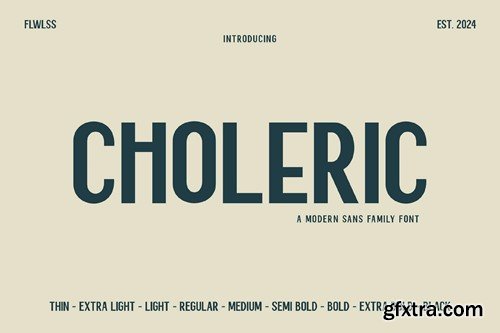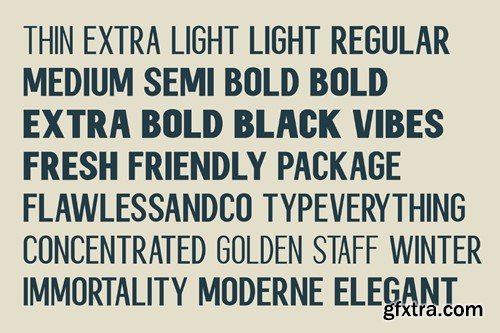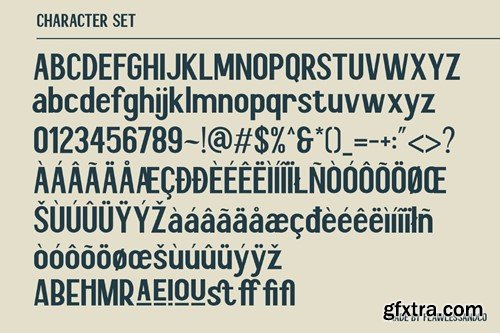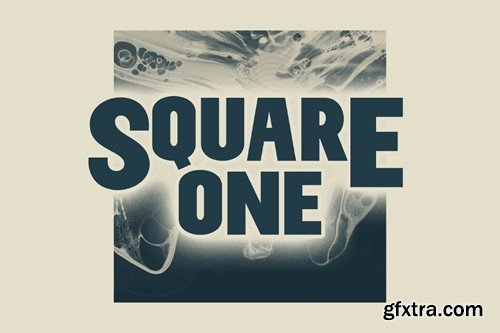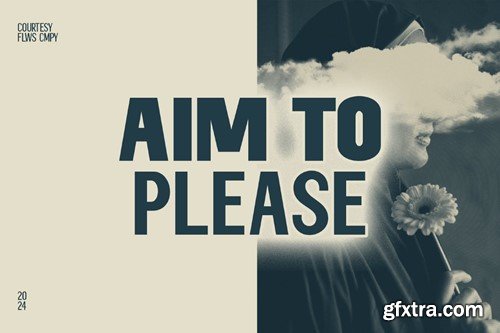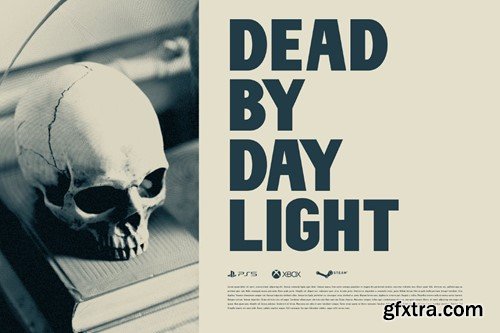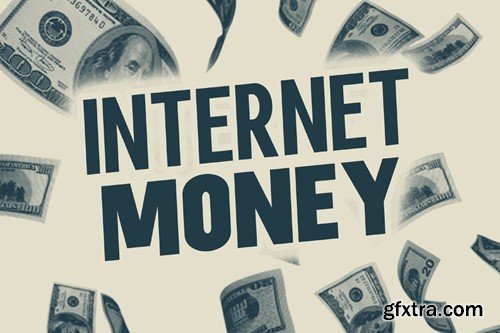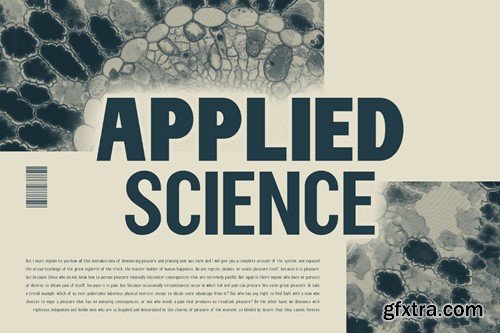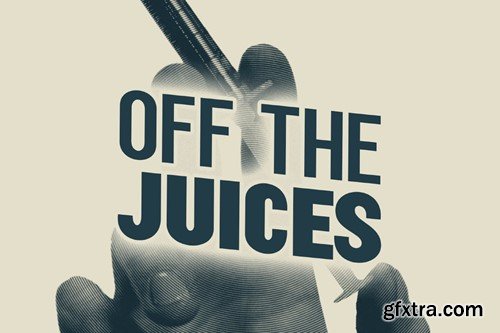
胆汁质 - 现代无衬线字体 9JHNBRQ
Choleric - Modern Sans Serif Family, Font Family, Sans Serif Font, Family Sans Serif, Modern Font, Elegant Font, Branding Font, Logo Font, Magazine Font Choleric is a versatile modern sans serif font family consisting of various weights ranging from thin to black styles, including thin, extra light, light, regular, medium, semi-bold, bold, extra bold, and black. Each style within the Choleric family maintains a strong and assertive impression with balanced characters. Featuring clean and sans-serif designs, Choleric emphasizes clarity and precision in every letter across its diverse weight spectrum. Its sharp and proportional lines ensure readability and aesthetic appeal, making it suitable for a wide range of design applications, from elegant titles to body text and modern graphic designs that demand a bold and contemporary look. But here we just share the regular type, if you want to buy all types, you can visit my website at flawlessand.co! Keywords: Font Family, Sans Serif Font, Family Sans Serif Included: Features : Multilingual Uppercase alphabet A-Z Lowercase alphabet a-z Numbers 0-9 Some punctuation NOTE: For all the characters are also available, accessible in the Adobe Illustrator Glyphs Panel, or in Adobe Photoshop Character Open Type Panel. If you need help, just write me! Thanks so much for checking out my shop! ----------------------------------------------- HOW TO USE FONT : (connected letters, swirls, heart, swashes, diamond) for the first, install the .otf file and open fontbook/character map, find the font and you can copy and paste the heart letters from fontbook/character map to your text. Thanks, Flawless and co.